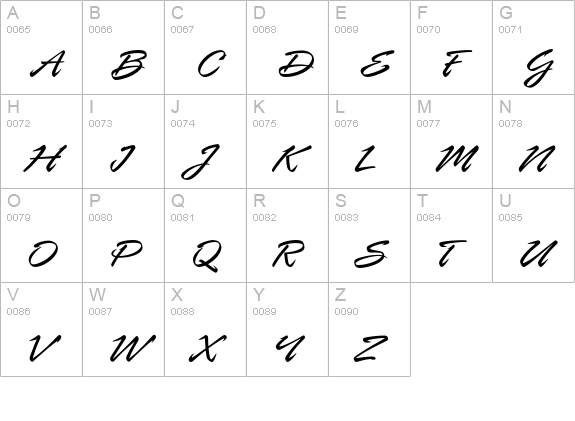
Introducing Rapier Std, a bold and dynamic font that exudes power and finesse. With its sleek and sharp design, this font is perfect for making a strong statement in any project. Rapier Std is a contemporary typeface that seamlessly combines modernity with a hint of classic elegance. Its precise lines and precise spacing create a visually striking effect, making it ideal for headlines, logos, and branding materials. This font is not just visually impressive, but also highly versatile. It can adapt to various design styles, from edgy and urban to refined and sophisticated. Whether you're working on a sports magazine, a fashion campaign, or even a corporate presentation, Rapier Std is sure to leave a lasting impression. What's even better is that Rapier Std is available for free download exclusively at FontsMarket.com. This means that you can enjoy the elegance and impact of this font without any cost. So, why wait? Elevate your designs with Rapier Std and make a bold statement that will captivate your audience. Download it now for free at FontsMarket.com and watch your projects come to life with style and panache.